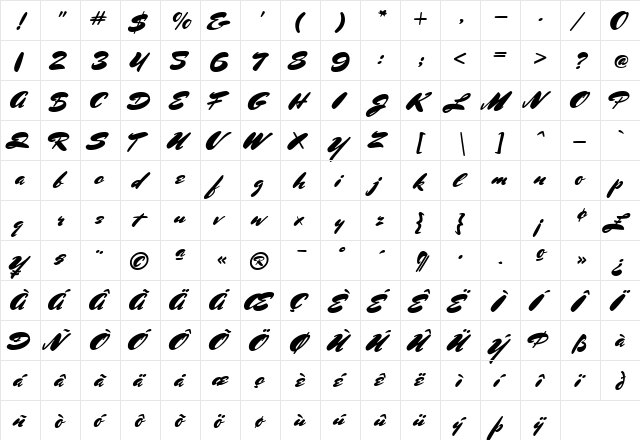
Mr Sheppards Regular
Design Context for Mr Sheppards Typeface
Mr Sheppards is a composed and adaptable typeface that performs quietly and consistently across a wide range of design contexts.